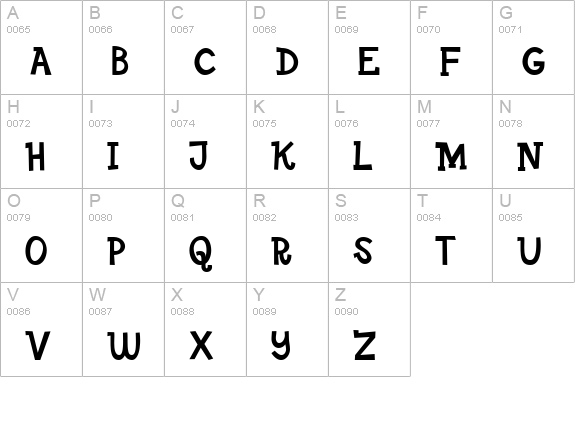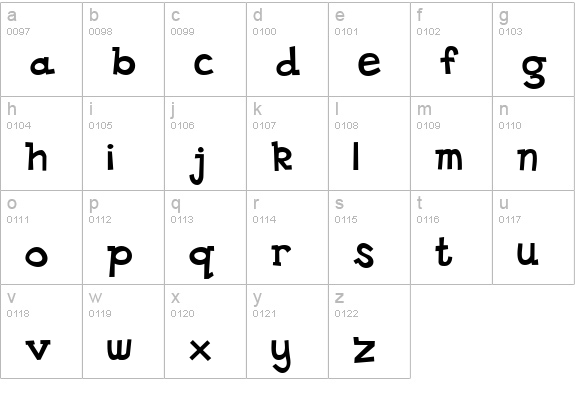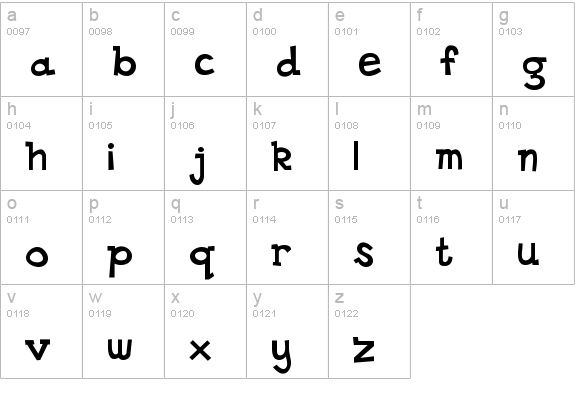
DS Goose Font Details
DS Goose font is a versatile and stylish typeface that combines modern elements with a hint of classic charm. With its sleek curves and clean lines, this font exudes a sense of sophistication and elegance that is perfect for a wide range of design projects. Whether you are creating branding materials, invitations, posters, or website designs, DS Goose font will add a touch of refinement to your work. What makes DS Goose font even more appealing is that it is available for free download at FontsMarket.com. This means that you can easily access this high-quality font without any cost, making it a valuable addition to your font collection. So why wait? Enhance your design projects with the timeless beauty of DS Goose font today!